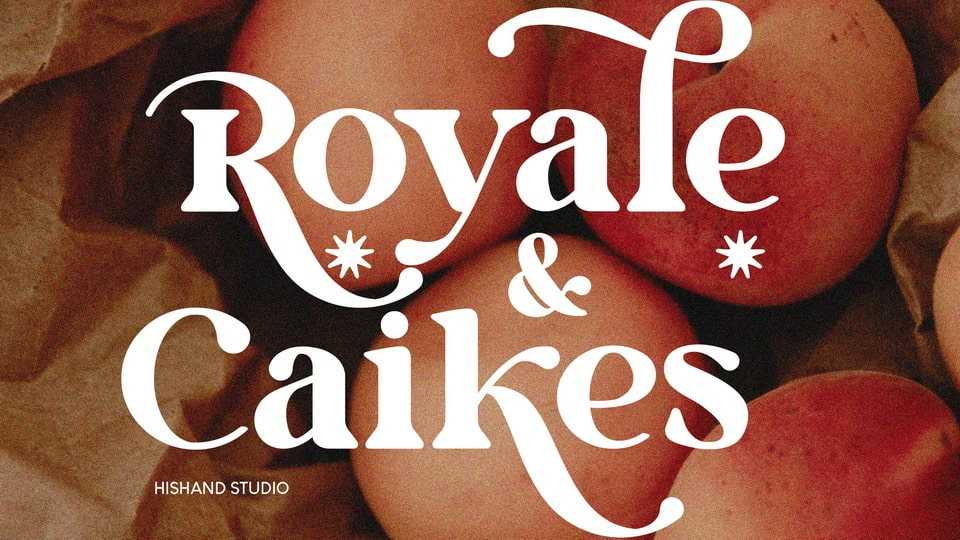
Download Royale & Caikes font,, a captivating new serif typeface, exudes timeless elegance with its graceful curves and refined serif, making it a sophisticated choice for any design project.